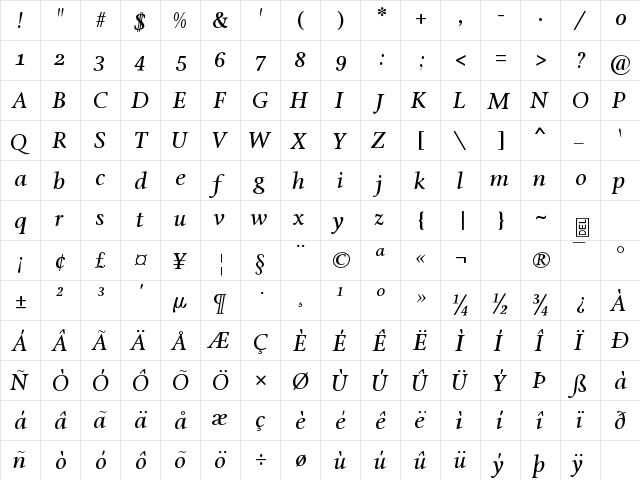
Atavyros Regular
| Designer | George Douros |
Design Context for Atavyros Typeface
Atavyros is a composed and adaptable typeface that performs quietly and consistently across a wide range of design contexts.